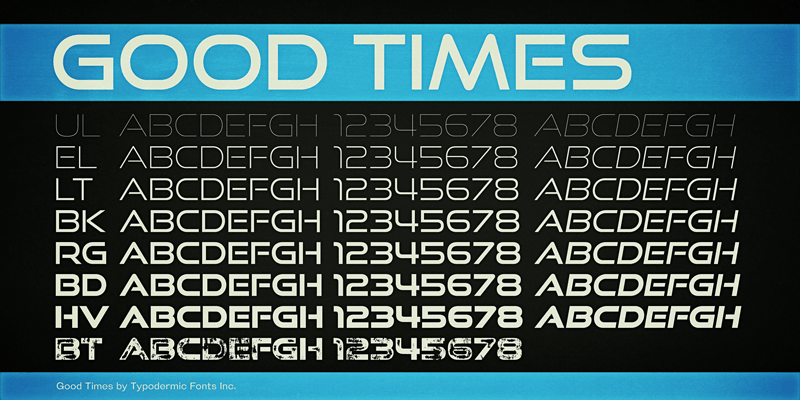
Font name: | Good Times |
Good Times was originally created in 1998 and has been overhauled a decade later. Accents cover more languages. Good Times now includes fractions & numeric ordinals. When you’re using Good Times Bad Times in an OpenType savvy application, common letter pairs will be automatically replaced by custom pairs for a more realistic, stamped effect. This font includes a license that allows free commercial use: sometimes referred to as a desktop license. This allows you to install the font on a computer and use it to create posters, web graphics, game graphics, t-shirts, videos, signs, logos and more. Read the license agreement for details. If you'd like to embed this font in an app, ebook, on the web or anything that's not covered by the desktop license agreement, visit the link below. You'll find distributors who offer different types of licenses or you can contact me for help. http://typodermicfonts.com/good-times/ This free font is part of a larger font family. Check out the rest of the family through the link above. |